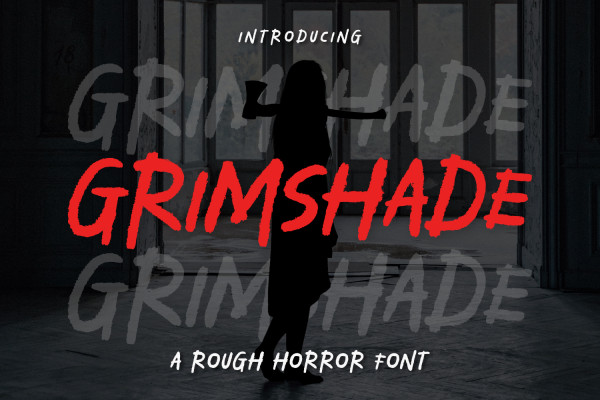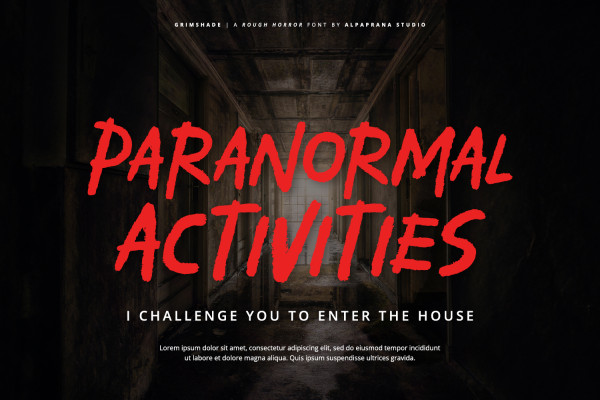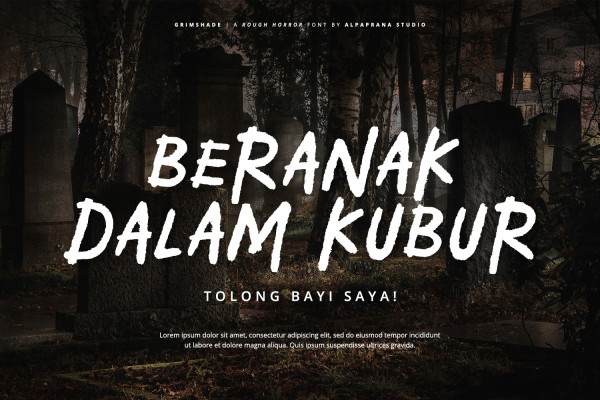
Grimshade Rough Font
Grimshade Rough Font is a rough horror font with modern feels. It will be perfectly used for Branding, Logo Design, Lettering, Logotype, Clothing, Poster, magazine, packaging, posters, shopping bags, t-shirts, book covers, photography, special events and other design project.